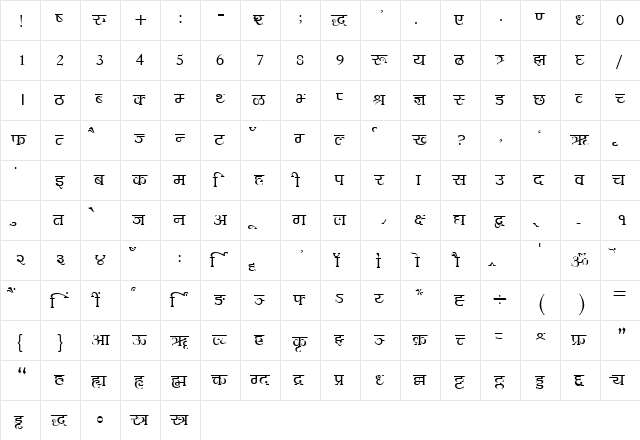
Hemant Normal
Design Context for Hemant Typeface
Hemant offers clean, dependable letterforms without strong stylistic allegiance, making it a practical choice for designers who need flexibility.
Pro Tip: Use Hemant in both headline and body roles to test its range before committing to a single application.